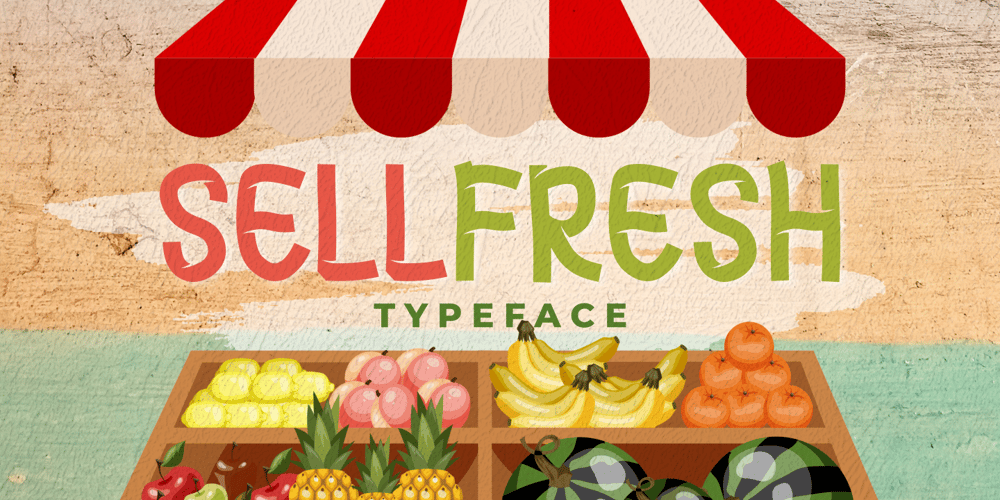
Sellfresh Font Family was designed by Abdullah and published by Brithos Type. Sellfresh contains 1 styles and family package options. Sellfresh is a playful display font. It will add a very relaxed and childish touch to your designs. Add this beautiful display font to each of your creative ideas and notice how it makes them stand out!Caps Only Fonts.